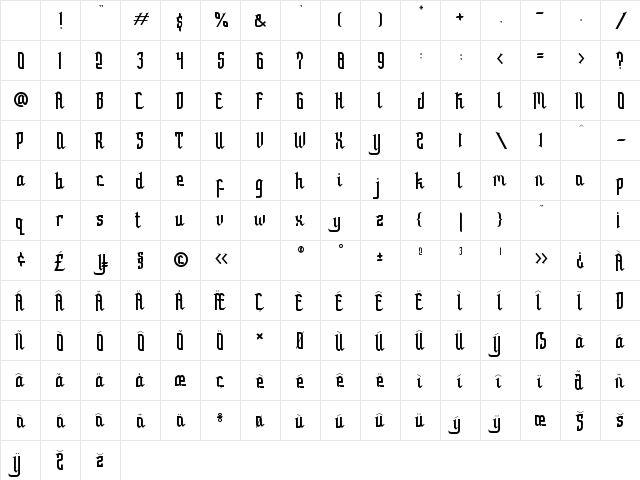
Complete Hikaya Mirage Regular glyph index. Displaying only characters natively supported by Hikaya Mirage Regular font.
Hikaya Mirage is a composed and adaptable typeface that performs quietly and consistently across a wide range of design contexts.